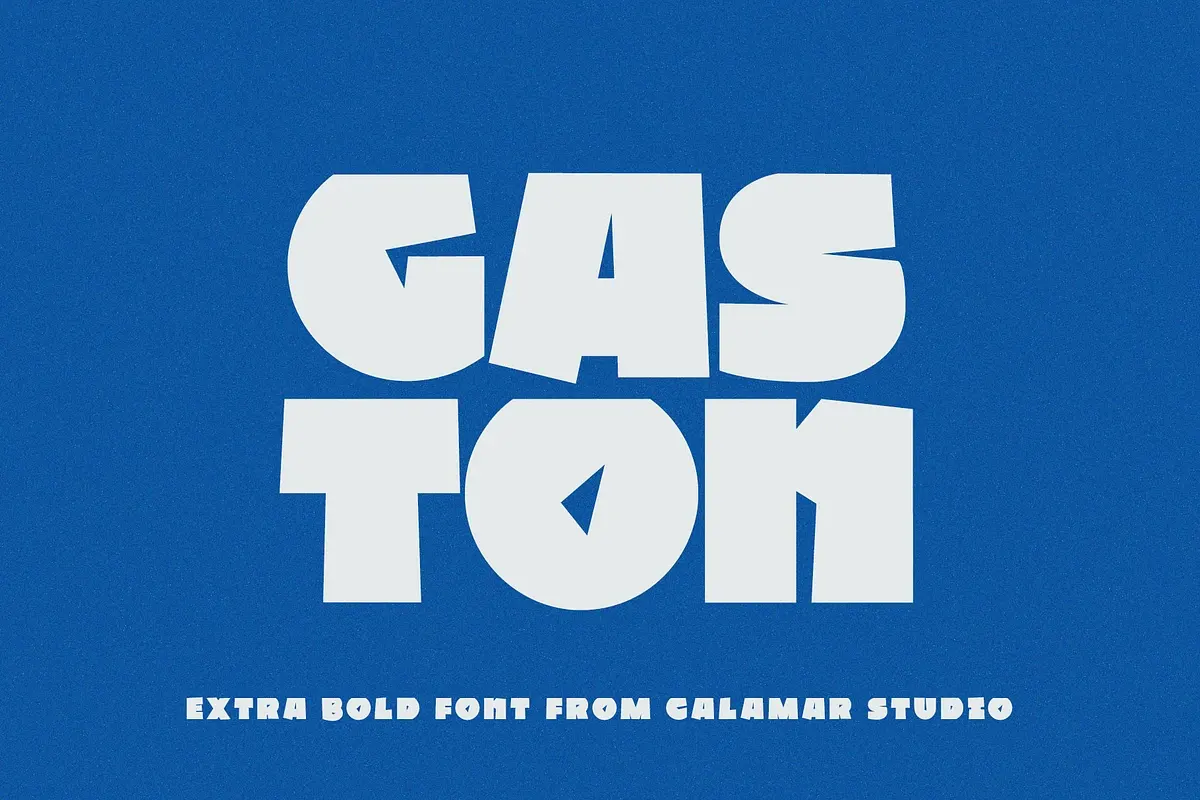
Gaston Extra Bold Sans Serif Font Free Download
Gaston Extra Bold Sans Serif Font Free Download is a powerful and modern sans-serif typeface designed for making bold, impactful statements. With its extra bold weight and clean, geometric lines, this font is perfect for headlines, logos, branding, posters, and any design that needs strong, clear, and confident typography.
Gaston Extra Bold stands out due to its high legibility and assertive presence, making it ideal for use in large sizes where its boldness can truly shine. Whether you're designing for a tech company, a sports brand, or a creative agency, this font will help your design stand out with clarity and strength.